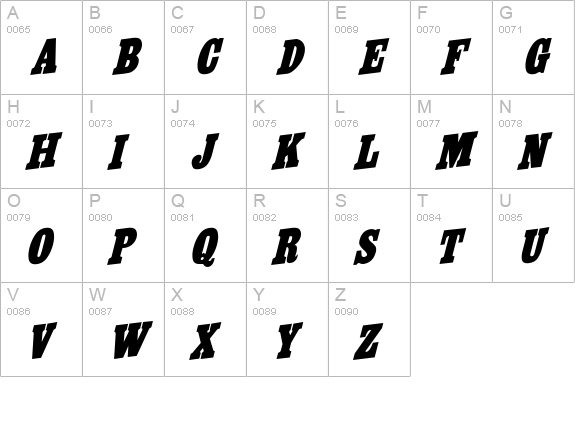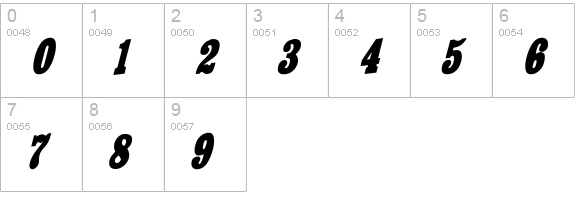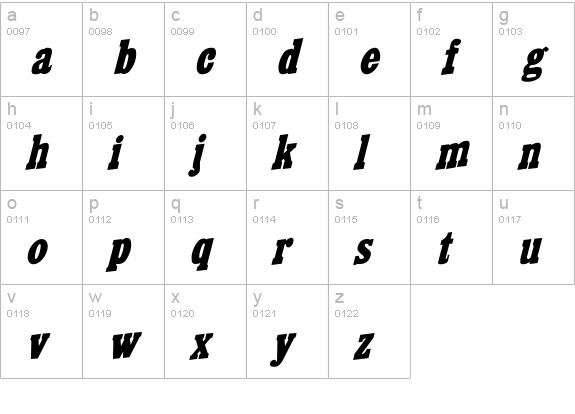
CairoExtendedItalic Italic Font Details
CairoExtendedItalic Italic is a distinctive, italic variant in the CairoExtendedItalic typeface family \xE2\x80\x94 well suited to design and typography projects.
CairoExtendedItalic Italic font is a sleek and sophisticated typeface that exudes elegance and modernity. With its stylish slanted design, this font is perfect for adding a touch of flair to any project. The italicized characters lend a sense of dynamism and movement, making your text stand out on the page. The CairoExtendedItalic Italic font is not only visually striking but also versatile, making it suitable for a wide range of design applications. Whether you're creating a poster, logo, website, or any other graphic project, this font is sure to make a statement. Best of all, CairoExtendedItalic Italic font is available for free download at FontsMarket.com. You can easily access this stylish font and incorporate it into your designs without any cost. Don't miss out on the opportunity to enhance your typography with this beautiful and freely available font.